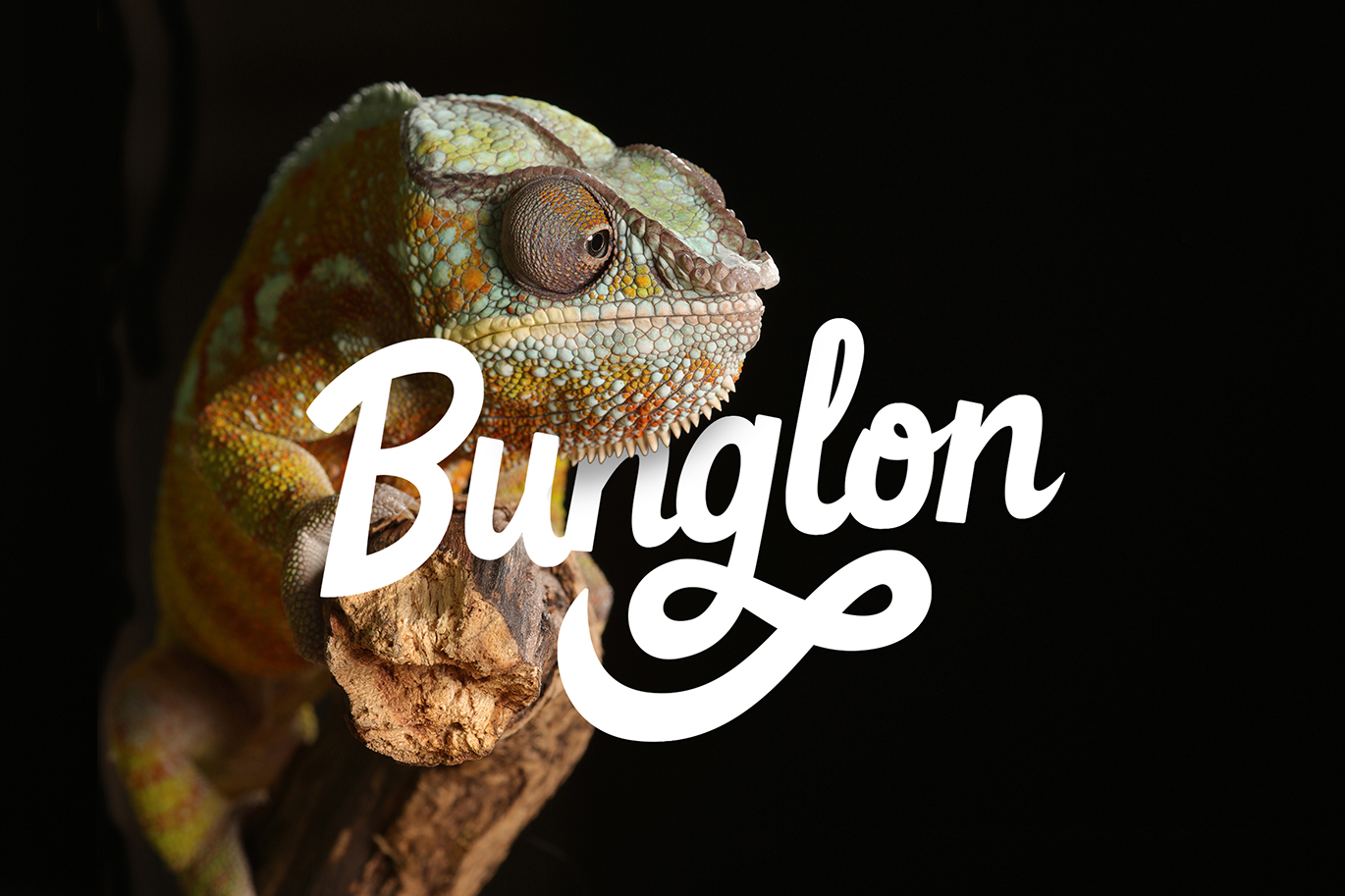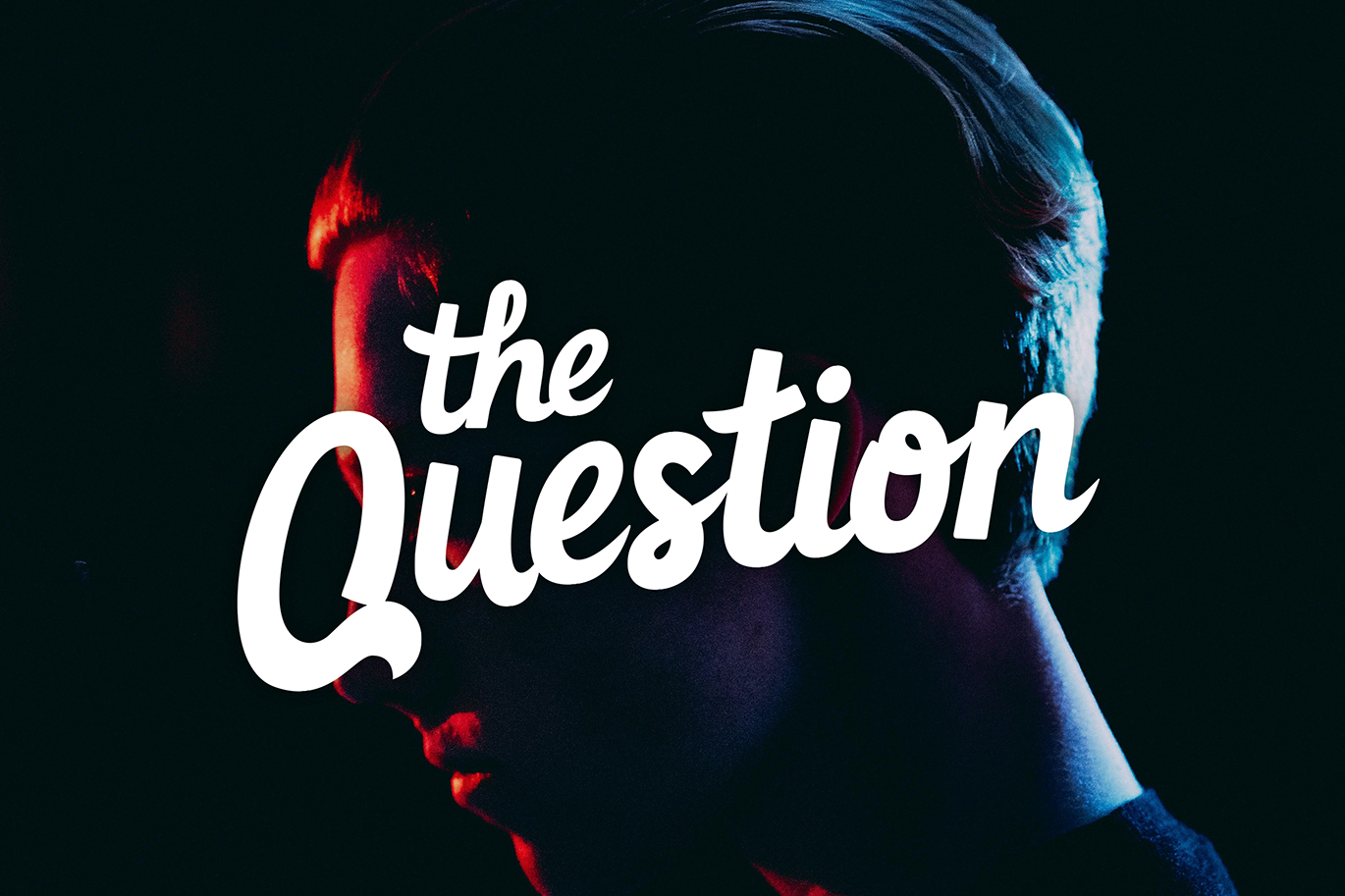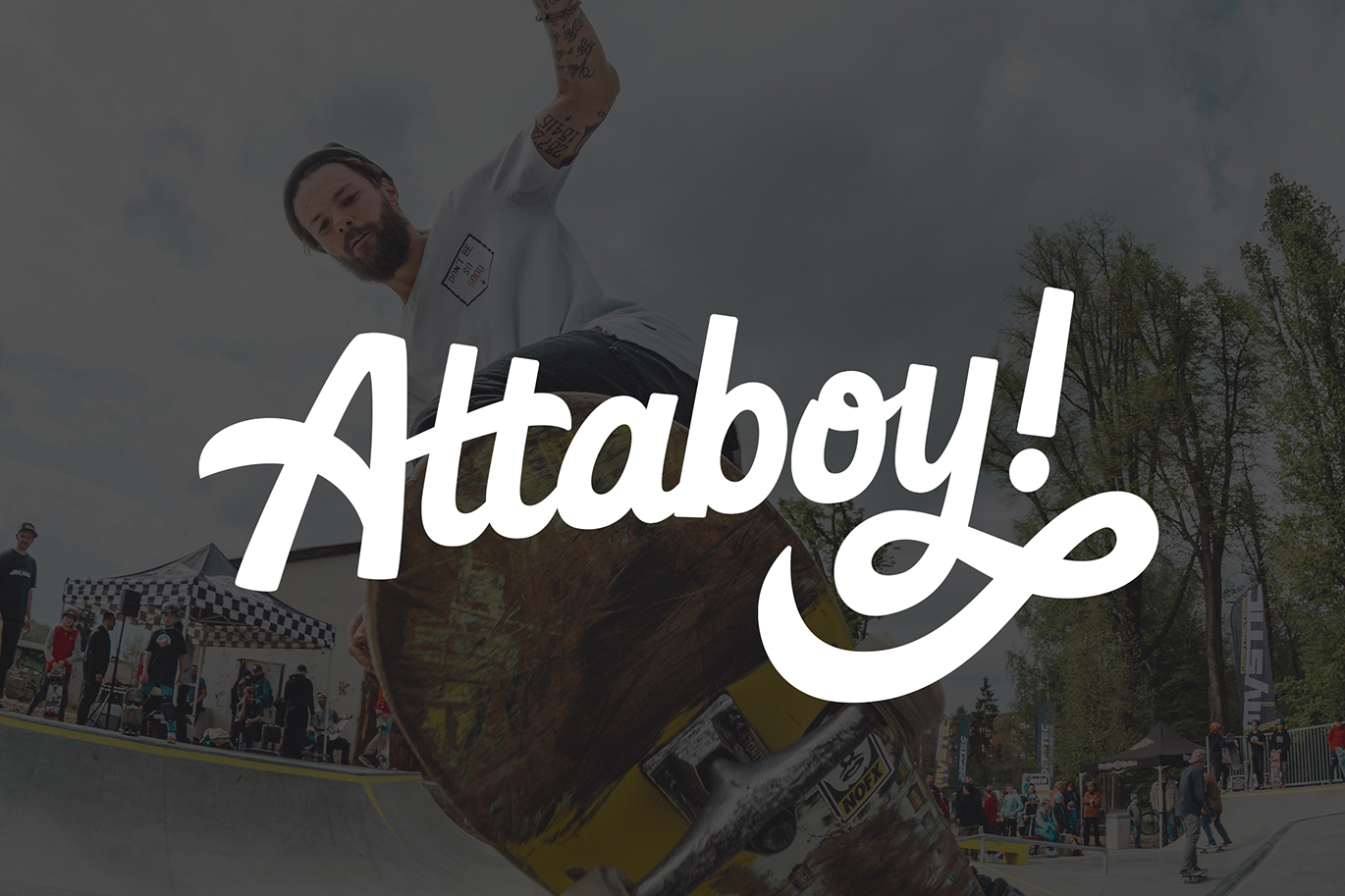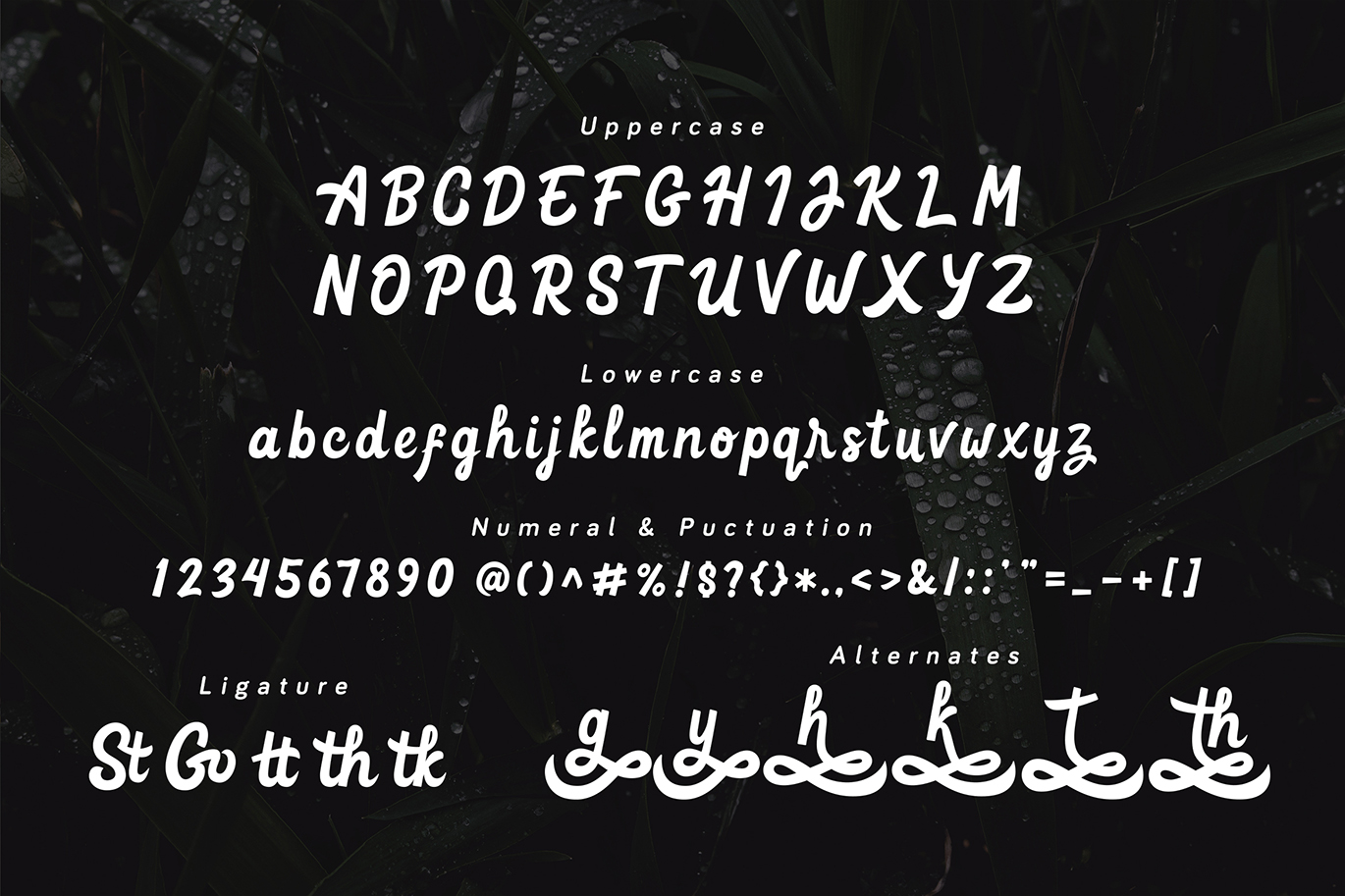
Goteru | Eyecatching Cursive Font
Goteru - Eyecatching Script Font with a calligraphy style, So beautiful on invitation like greeting cards, branding materials, business cards, quotes, posters, and more!
- Hundred of glyphs
- Alternates and Ligatures
- Fonts include Multilingual Support.